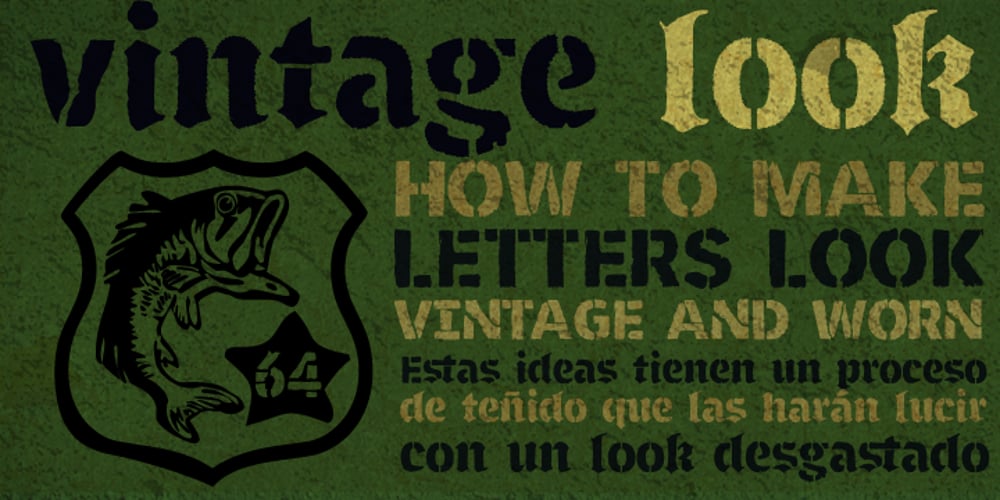
Floro Font Family was designed by Carlos Fabián Camargo Guerrero and published by Andinistas. Floro contains 3 styles and family package options. Floro is a typographic family with 3 members designed by Carlos Fabian Camargo. Its idea combines medieval ideas, grotesque, stencil and grunge for T-shirts, stickers, advertising material design. More specifically the concept of Floro join several DNAís coordinating X height, ascendant, descendant and wide, in which proportions and adaptive optics were determined to inject great visual impact when composing titles. Its forms and counter forms have imperfections controlled with vitality and consistency. Floro is useful for ranking words and phrases with corroded edges and creases between the lines of his letters. In that vein, Floro refers to improvised design, deletion and copying. For that reason, its determinants seem stencil patterns that attract the attention of the reader. Its inaccurate decisions were planned that way, in which the type of contrast seems made with a flat tip and the amount of contrast between thick and thin is medium. Its sizes, regular and italic shine by their systematic wear and terminations sometimes in pointed forms resembling medieval darkness. In short, we can say that Floro comes from the miscegenation of Gothic calligraphy texture, foundational calligraphy and some refinements of gothic writings with italic sans-serif ideas of late 19th century. Even with the blur appearance, floro has ideal proportions to pile for horizontal and vertical areas when composing titles with striking looks and robust. And finally, floro dingbats are related shields and stamps, to accompany the written resulting useful at the level of visual support and hierarchical.